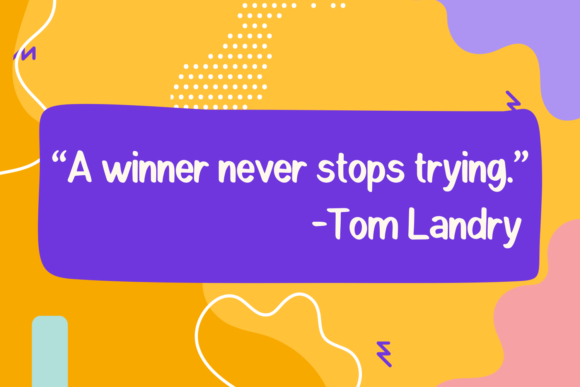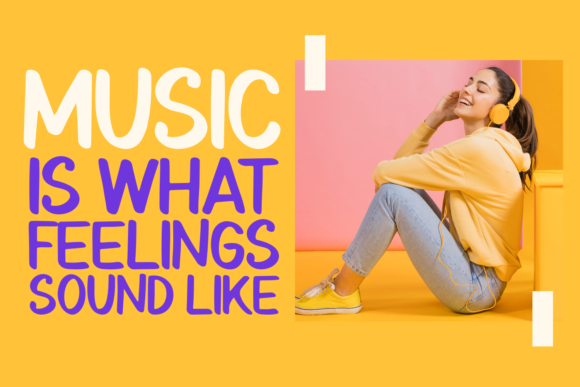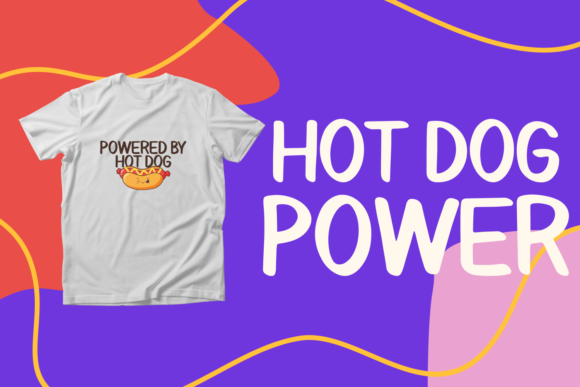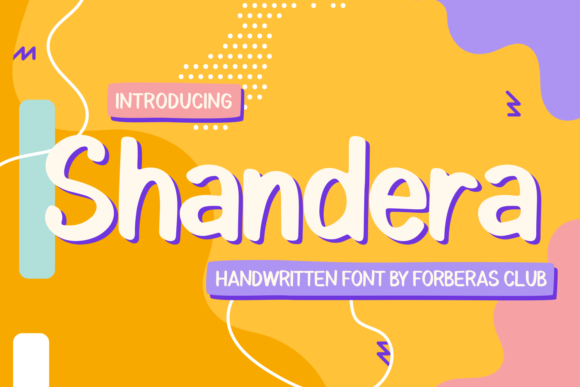
Introduction to Shandera Font
Shandera is a fun and playful handwritten font.
It will elevate a wide range of crafting ideas, from cards, to branding, labels and much more Add it confidently to your favorite creations and let yourself be amazed by the outcome generated.
Key Features of Shandera Font
Why Choose Shandera Font?
Shandera Font offers exceptional quality and versatility, making it a valuable addition to your design toolkit. Whether you’re creating for personal projects or commercial use, Shandera Font delivers professional results.